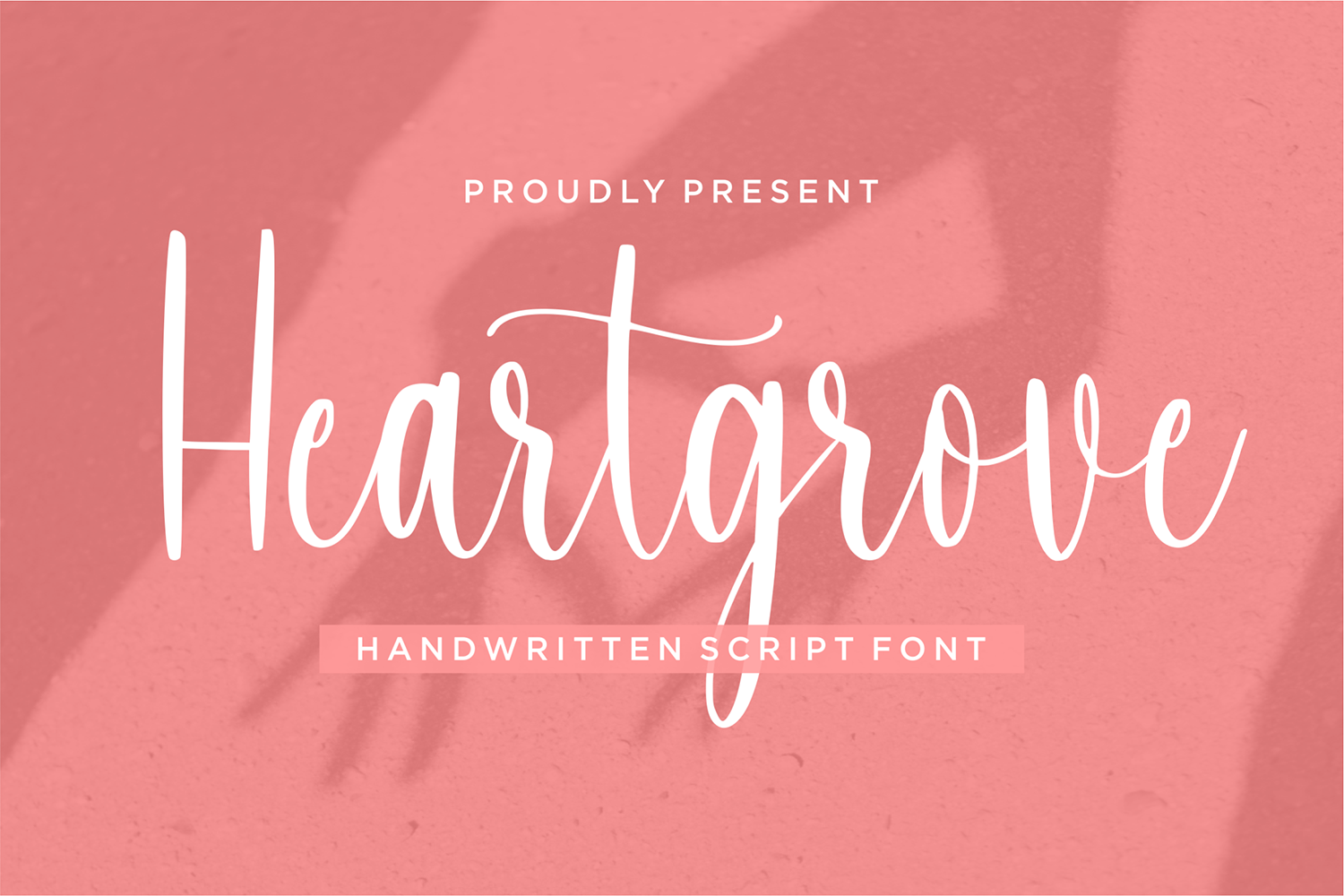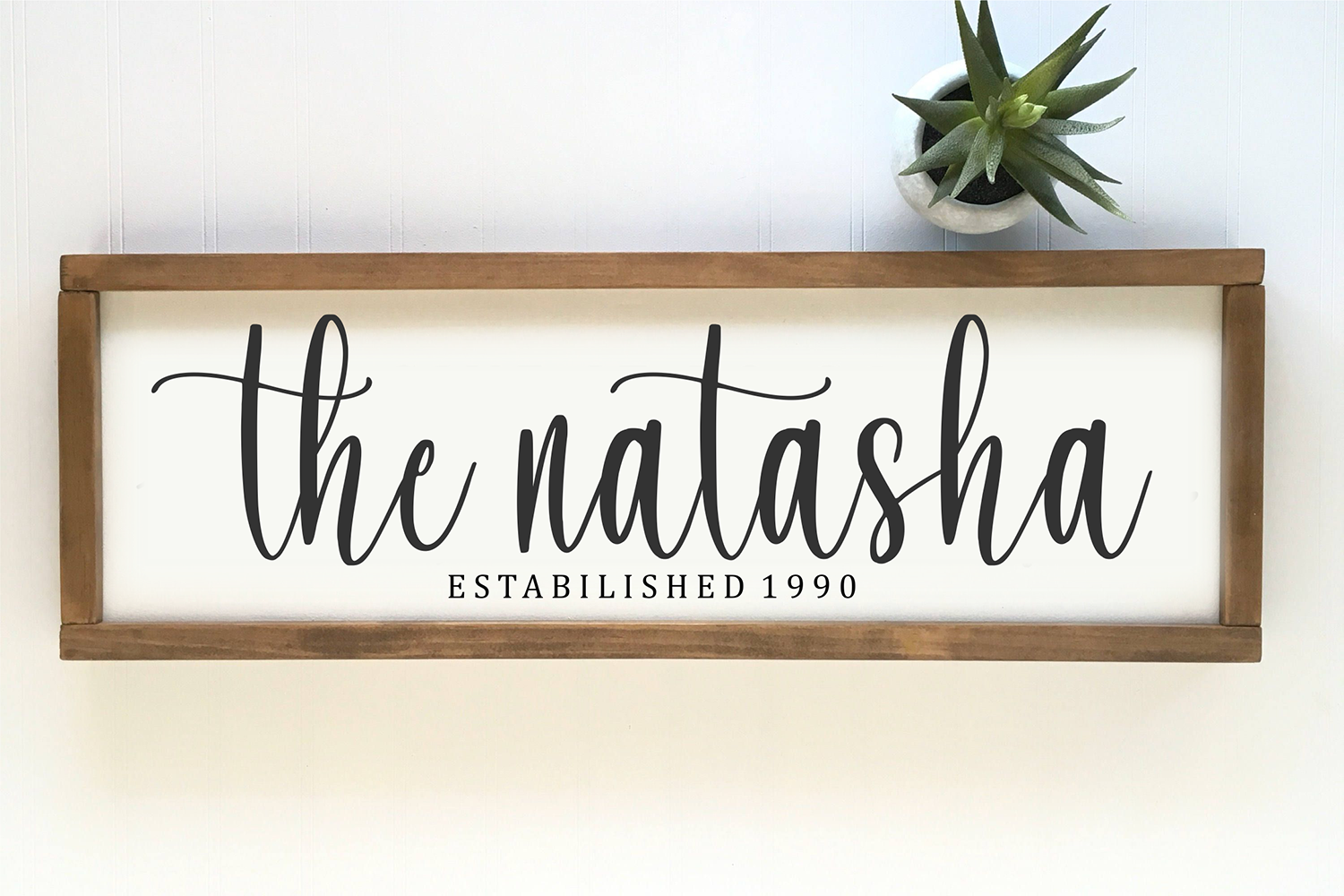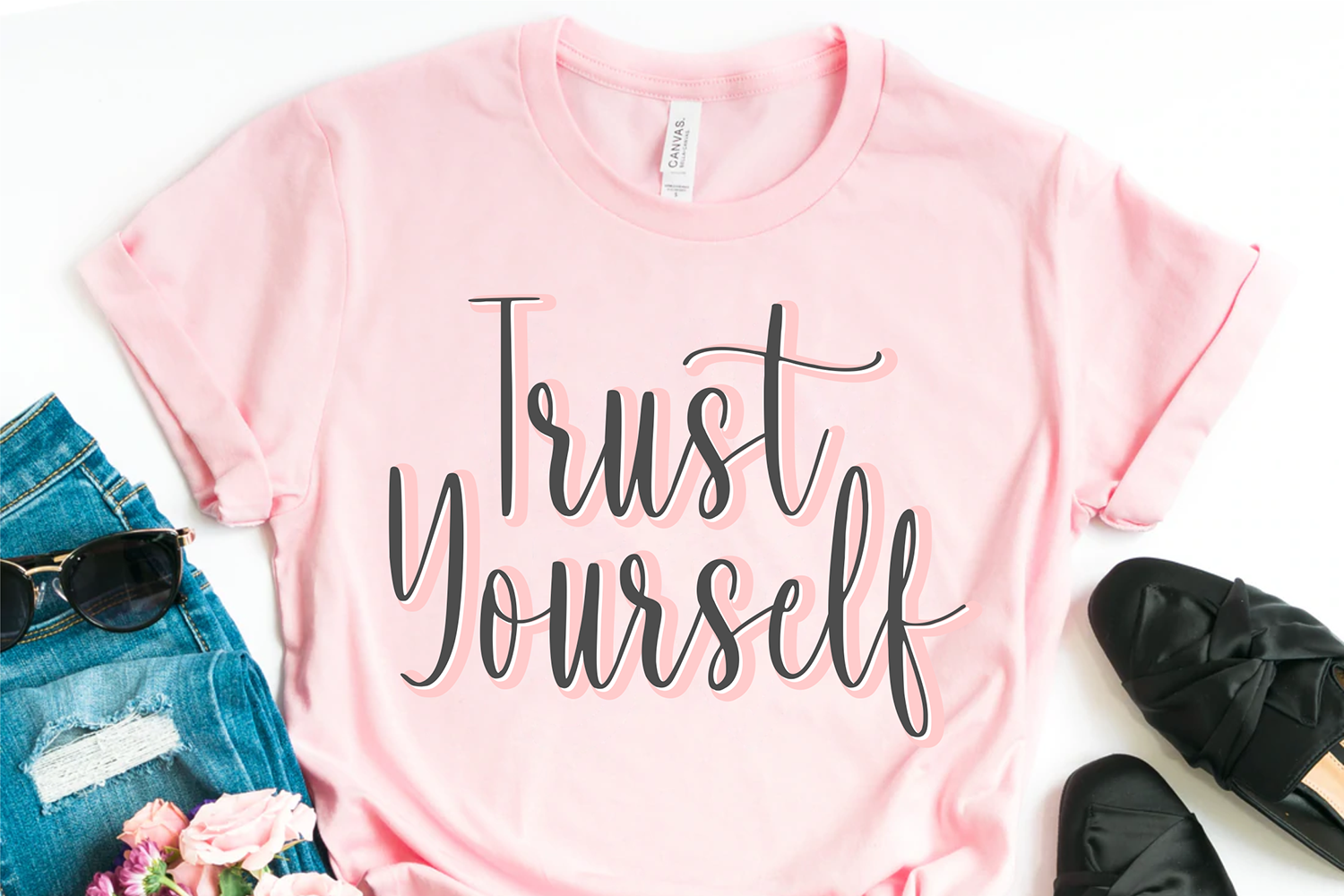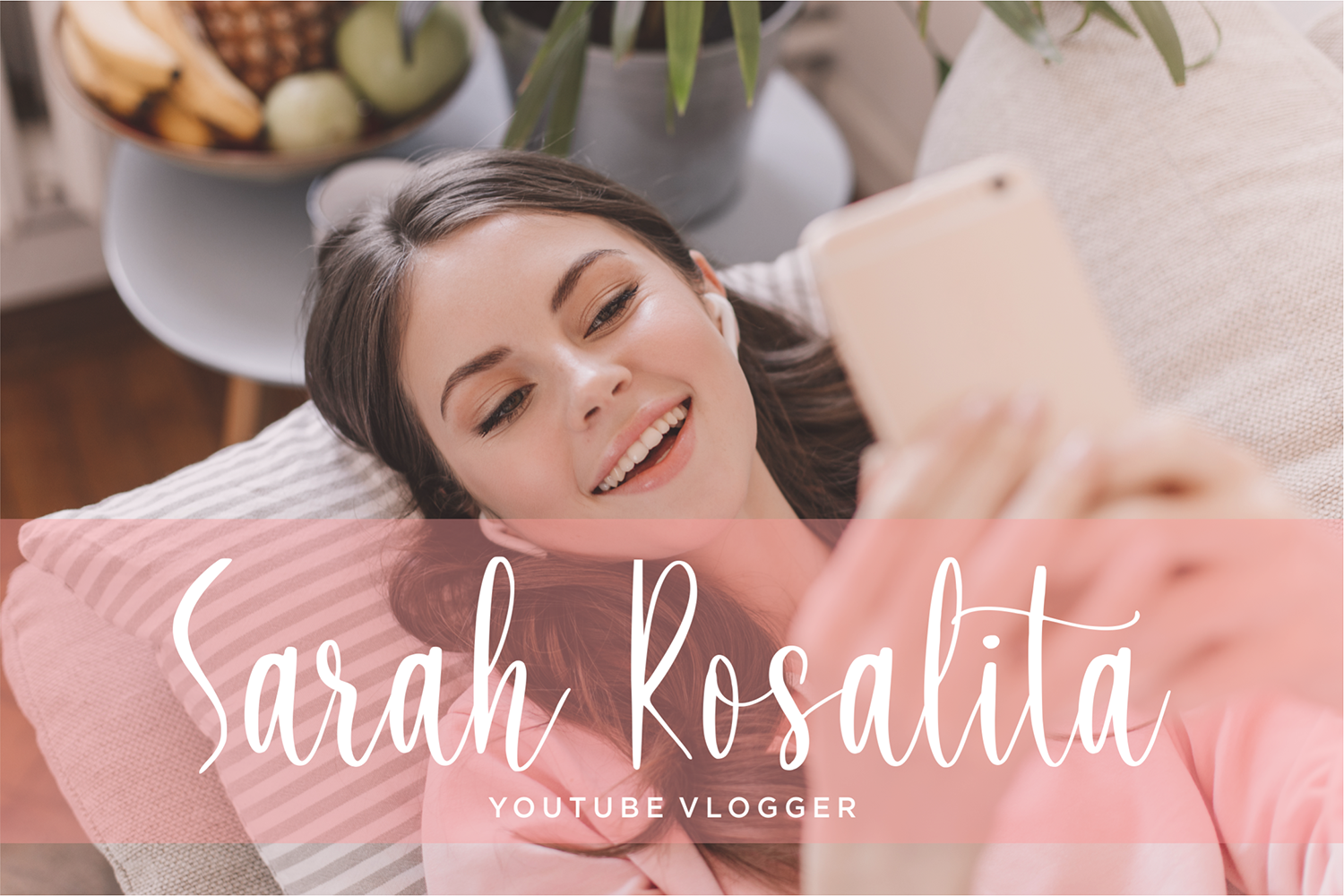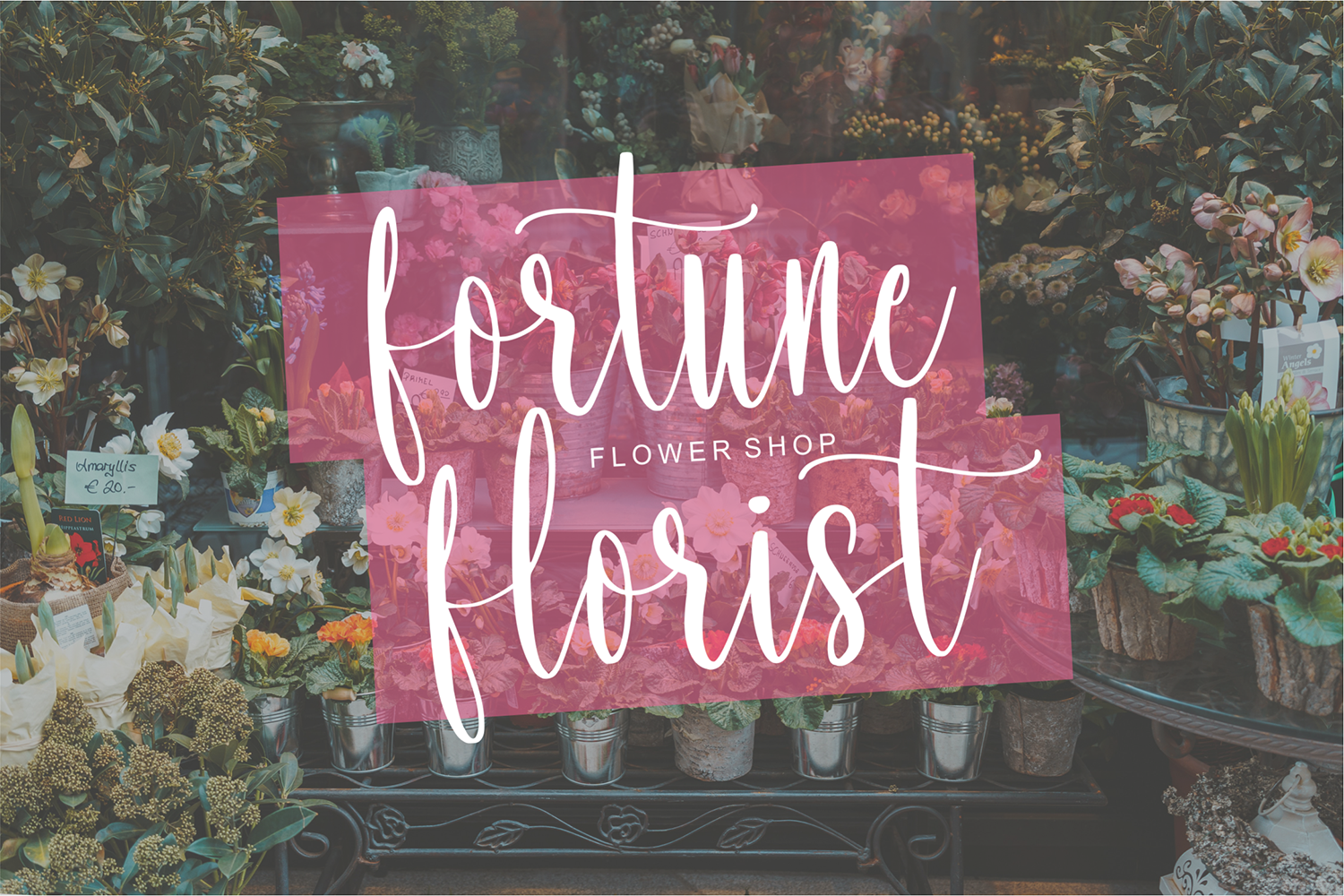
Heartgrove Free Font
Heartgrove Free Font feels playfully handmade and delivers an incredibly playful handwritten font. Use this display font to add that special playful touch to any design idea you can think of! Masterfully designed to become a true favorite, this font has the potential to bring each of your creative ideas to the highest level. This free typeface was designed by a talented Qwrtype Foundry. If you like it don’t forget to check out the full version.